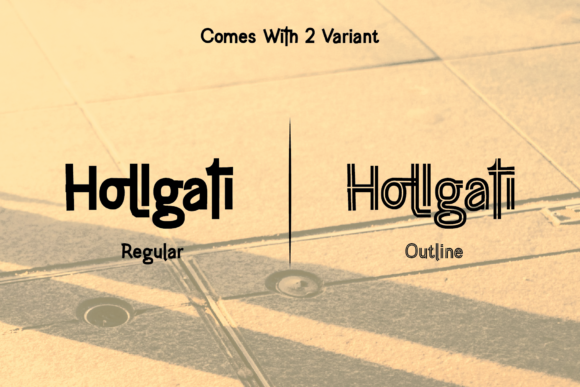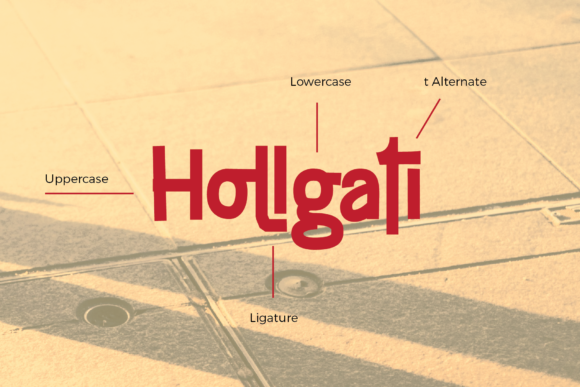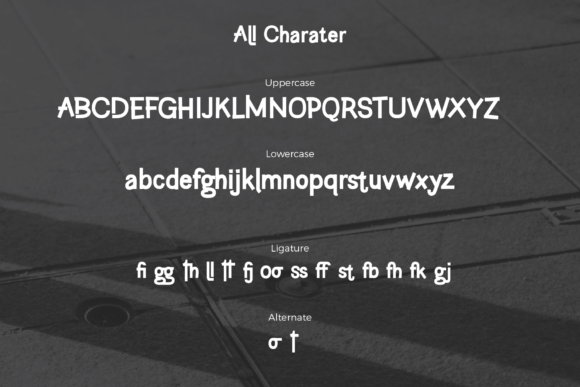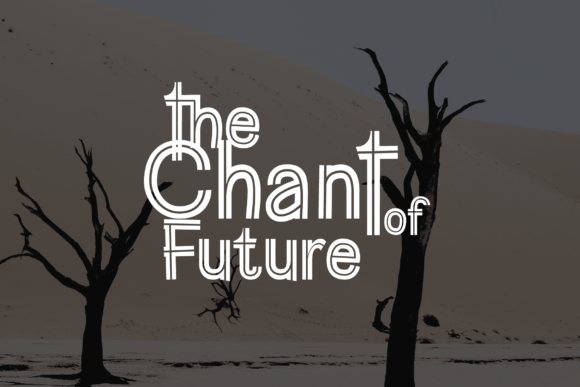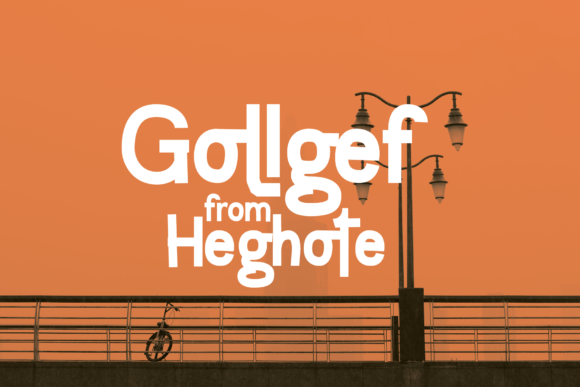
That’s where the Hollgati Font comes in – a cool and modern sans serif font with beautiful ligatures that will add a unique style to any design project. Whether you’re working on a logo, brochure, or website, the Hollgati Font is the perfect addition to elevate your design to the next level.
As a valuable asset for designers, the Hollgati Font offers a wide range of possibilities, from corporate branding to creative marketing materials. Its versatility and sleek design make it an ideal choice for any project, ensuring that your message is conveyed with style and sophistication.
Hollgati Font Key Features
- Font Family: Hollgati is a sans-serif font family that comes in 4 weights: Light, Regular, Medium, and Bold.
- Character Set: The font family includes a wide range of characters, including Latin, Cyrillic, and Greek alphabets, making it suitable for multilingual designs.
- Unique Characteristics: Hollgati features a distinctive geometric shape with rounded edges, giving it a modern and sleek appearance.
Hollgati Font Review
As a designer, I was excited to dive into the Hollgati font and see what it has to offer. Overall, I was pleasantly surprised by its unique style and versatility.
What works well: ✨ The Hollgati font has a quirky, hand-drawn feel that’s perfect for adding some personality to your designs. The bold weight is especially great for headings and titles, and the font’s irregularities add a touch of elegance to body text. ✨ The font’s wide range of weights and styles makes it easy to find the perfect fit for any project. ✨ The Hollgati font is also highly customizable, with a wide range of options for adjusting spacing, kerning, and other parameters.
Limitations: ⚠️ One of the biggest drawbacks of the Hollgati font is its readability at smaller font sizes. While it’s perfect for headings and titles, it can be difficult to read in body text, especially for those with visual impairments. ⚠️ Additionally, the font’s unique style can be overwhelming if used too extensively. It’s best to use it as an accent font or in small doses to avoid visual fatigue.
Overall, I would recommend the Hollgati font for designers looking to add a touch of whimsy to their projects. While it has its limitations, its unique style and versatility make it a valuable addition to any font library.
- Unique, hand-drawn feel
- Wide range of weights and styles
- Perfect for headings and titles
- Difficult to read at smaller font sizes
- Can be overwhelming if used too extensively
Tips for Getting the Most Out of Hollgati Font
Here are some tips for using the Hollgati font effectively:
- Use the Hollgati font for headings and titles to add a touch of elegance.
- Pair the Hollgati font with a clean sans-serif font for body text.
The Hollgati font is ideal for:
- Luxury brand logos and packaging.
- High-end fashion and beauty branding.
Compared to Hollgati Font, Great Vibes Font has a more refined and polished feel, making it ideal for high-end designs. It also has a wider range of language support and a more extensive character set.
Does Hollgati support multilingual characters?
Yes, Hollgati supports a wide range of languages, including Latin, Cyrillic, and Greek scripts. It also includes characters for many languages, including but not limited to English, Spanish, French, German, Italian, Portuguese, Dutch, Russian, Polish, and many more. However, please note that the font may not support all languages or characters, and some characters may be missing or substituted with similar glyphs.